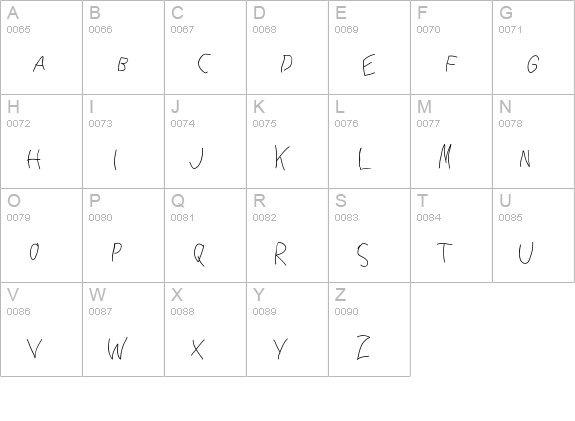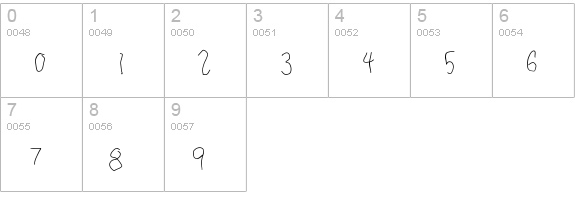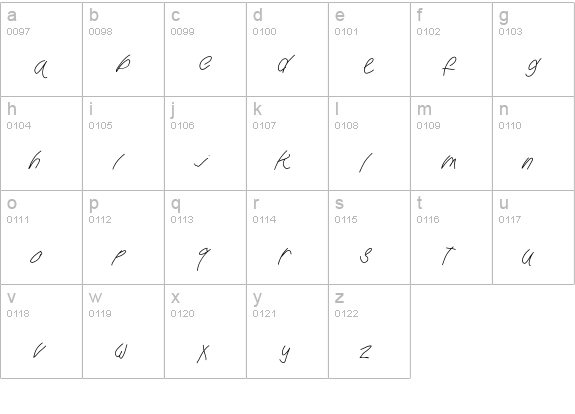
Giyasaw Font Details
Giyasaw is a free for personal use font in the Fancy > Comic category, designed by . It has been downloaded 10 times and is available for Windows, Mac and Linux.
The Giyasaw font is a beautifully crafted typeface that exudes elegance and sophistication. Its unique design features graceful curves and clean lines, making it perfect for a wide range of design projects, from branding to editorial work.